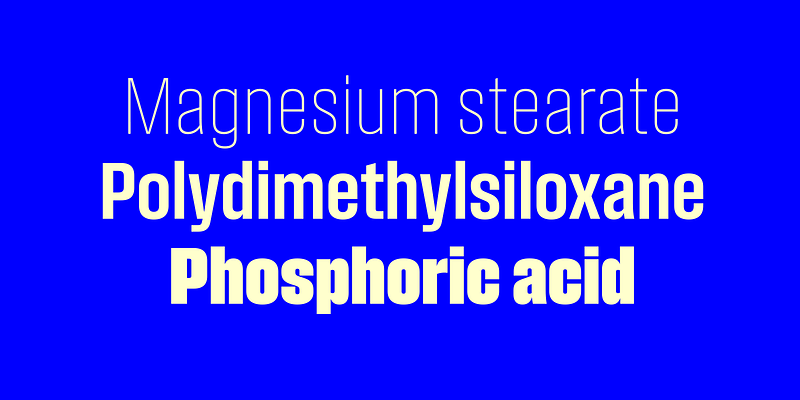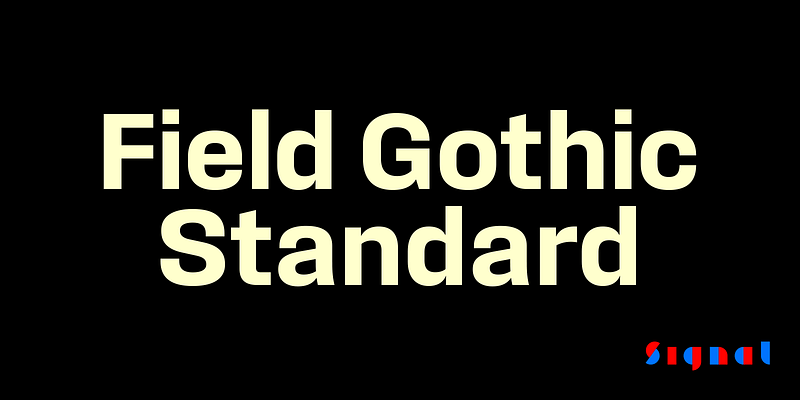
Field Gothic is a 64-style journey through the history of American and European sanses with eight widths and eight weights. The 24 Standard styles are the workhorses: crisp and on the cool side, with slightly superelliptical curves. The narrower styles are economical but not too narrow for text settings; the 16 wider styles are clear, sturdy, and pleasant to read as either text or titling. Also available: Field Narrow and Field Wide.